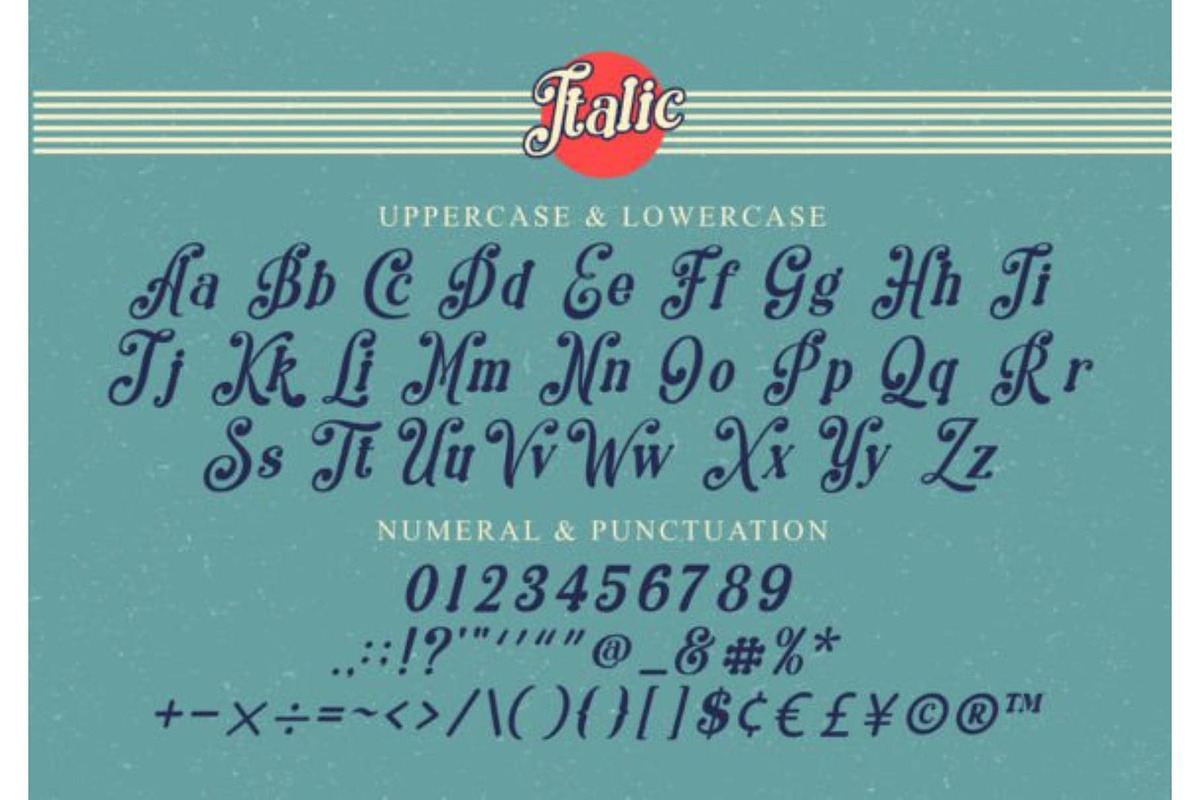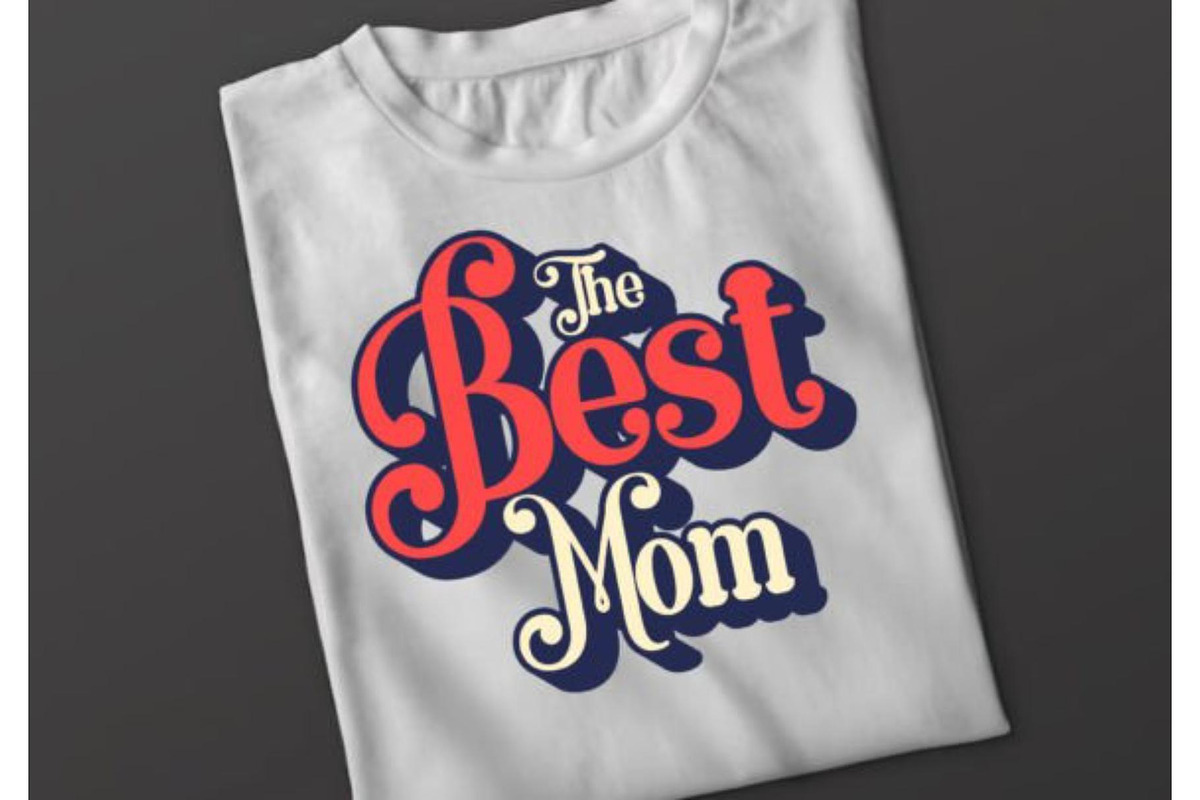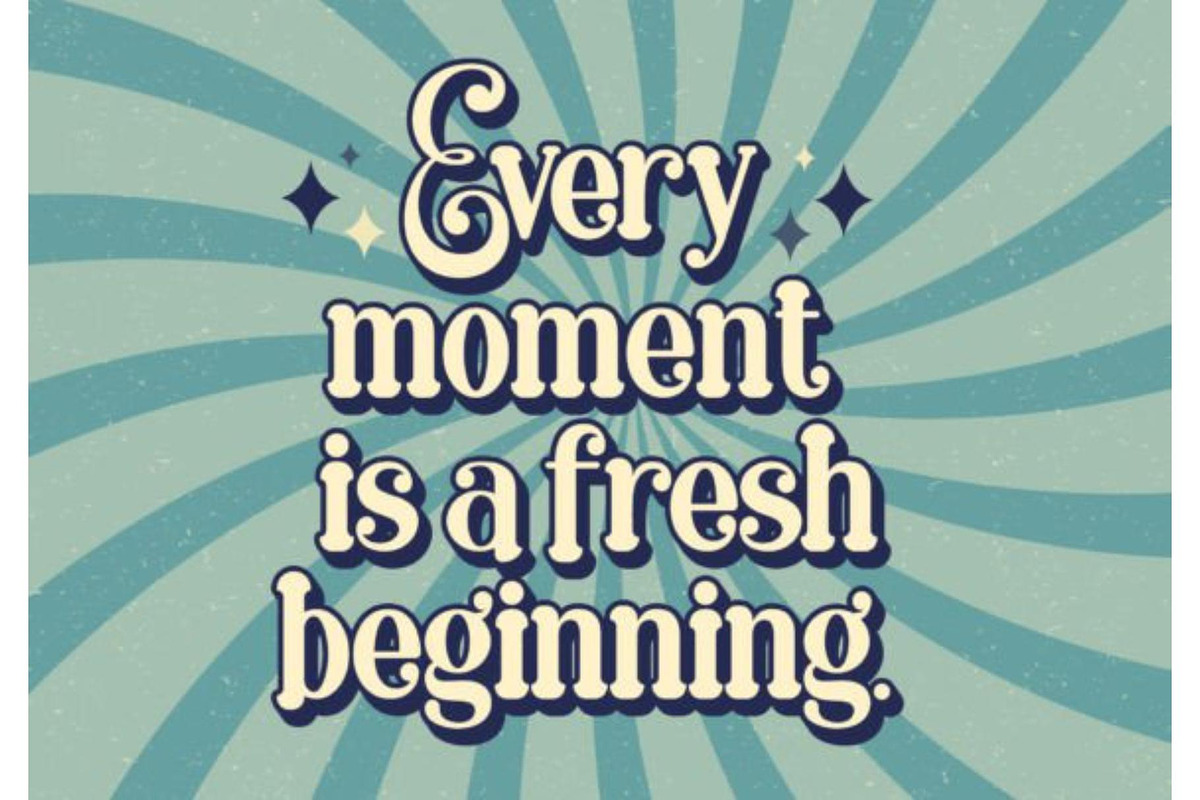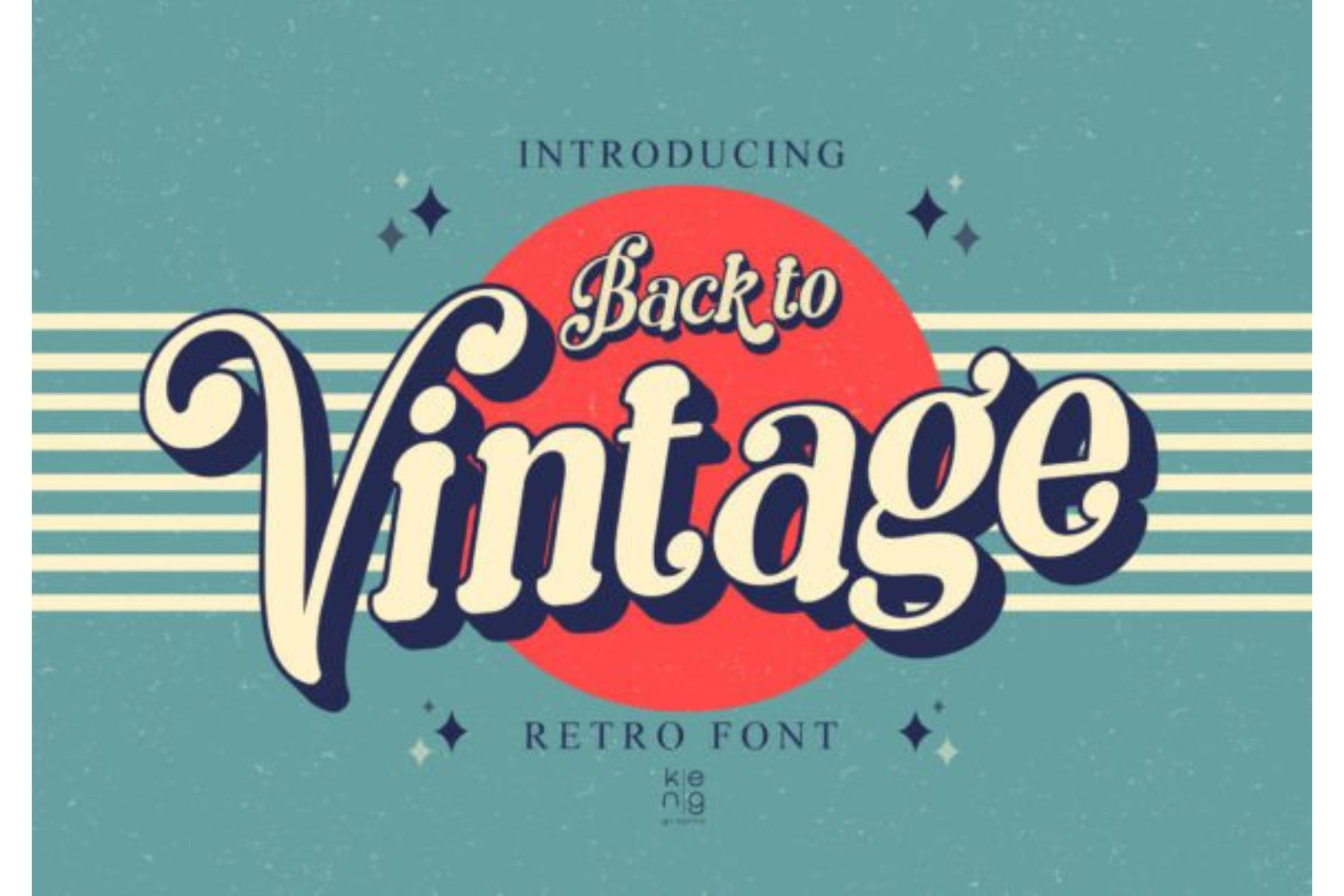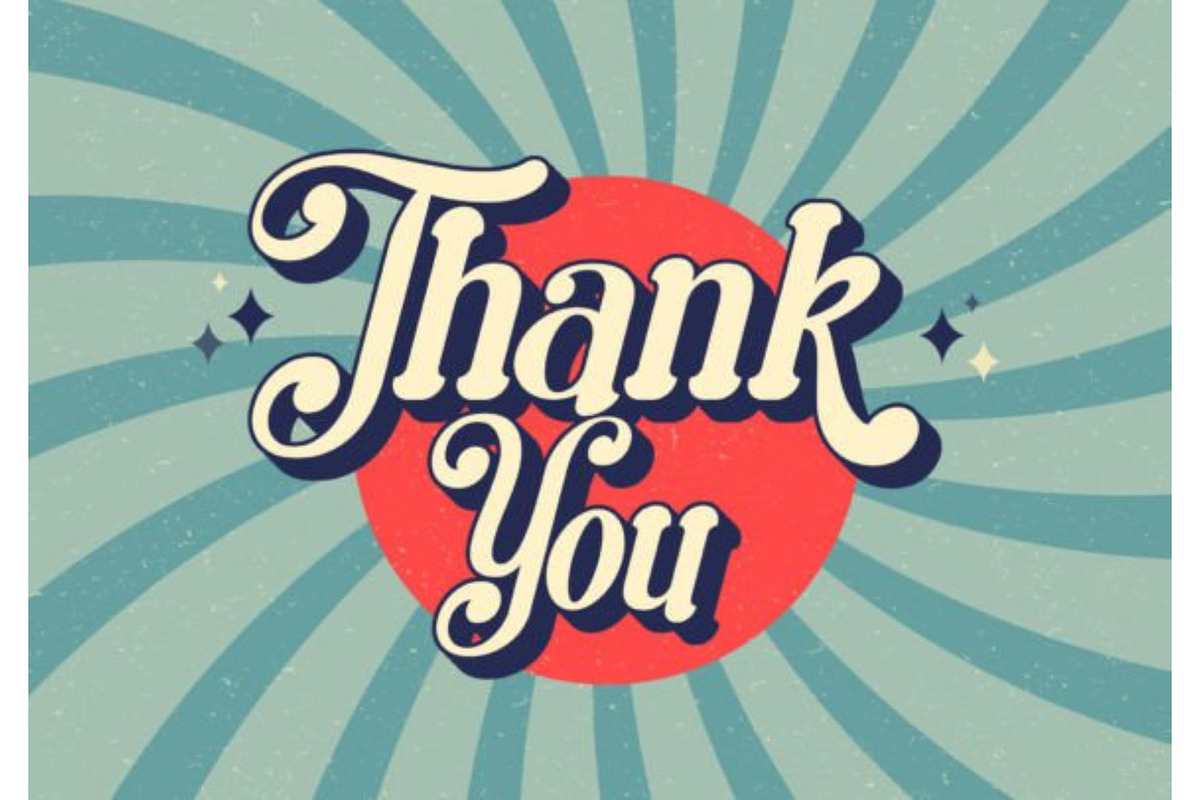
Back To Vintage | Retro Vintage Font
Back To Vintage is a bold retro display font inspired by the iconic typography styles of the 60s, 70s, and 80s.
Its rounded shapes, nostalgic character, and vintage personality make it perfect for retro branding, posters, apparel, packaging, and creative design projects.
• Retro Logos
• Vintage Branding
• T-Shirt Designs
• Posters & Flyers
• Product Packaging
• Social Media Graphics
• Café Branding
• Stickers
• Event Promotions
• Merchandise Designs
• Uppercase & Lowercase Letters
• Numbers & Punctuation
Back To Vintage delivers a timeless retro feel that instantly adds personality and nostalgic charm to any creative project.